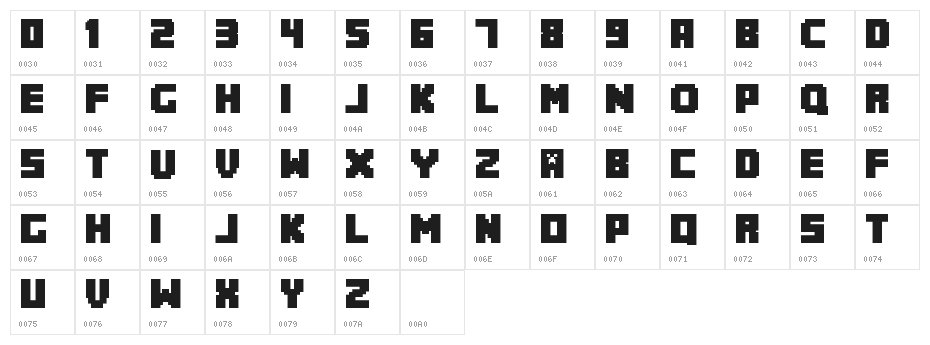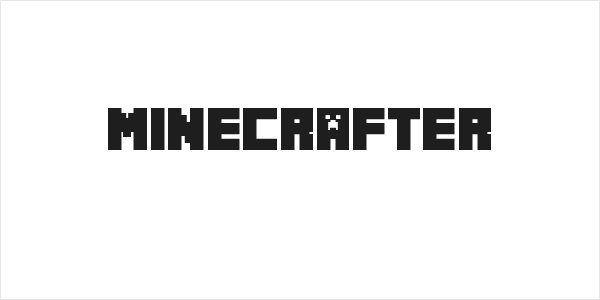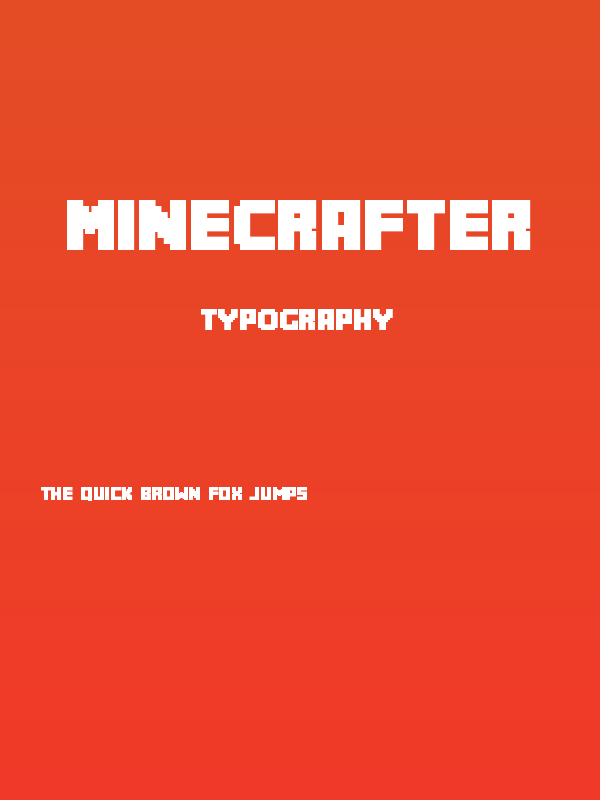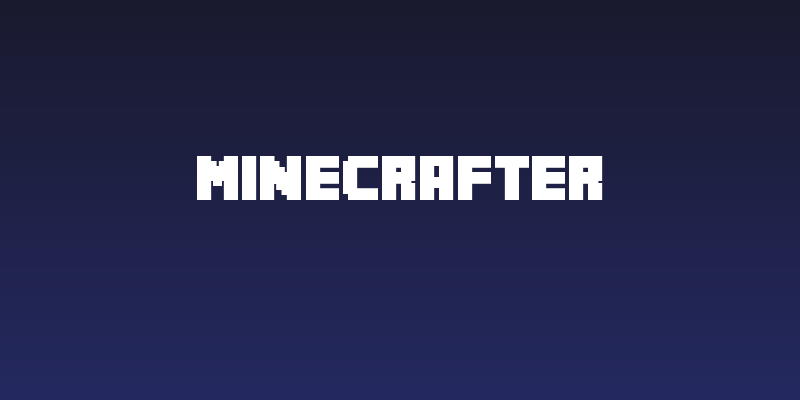
Minecrafter Font
Minecrafter Description
This font features a bold, blocky design reminiscent of pixel art, with each character constructed from square-like forms. The style is highly geometric, with sharp angles and a uniform thickness throughout each letter and number. It evokes a retro, digital aesthetic, often associated with early video games and computer graphics. The uppercase and lowercase letters maintain a consistent height, contributing to a cohesive and structured appearance. The numerals follow the same design principles, ensuring readability and visual harmony. This font's distinctive style makes it ideal for projects that aim to capture a sense of nostalgia or a digital, tech-inspired theme.
| Overall Style | Retro, Digital |
| Proposed Projects | Ideal for video game designs, tech-themed posters, retro-style branding, and digital art projects. |